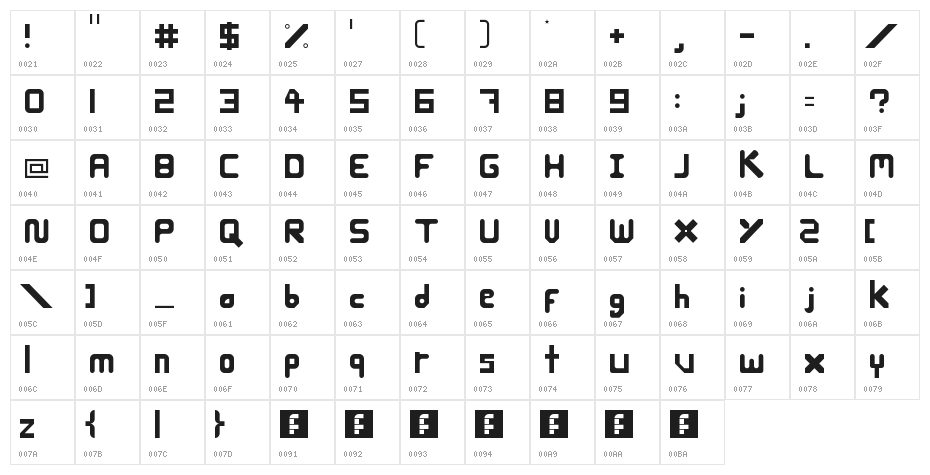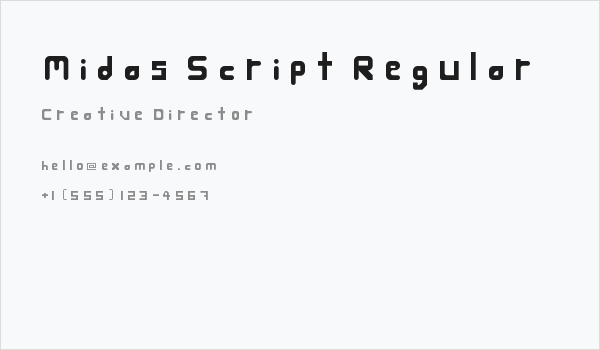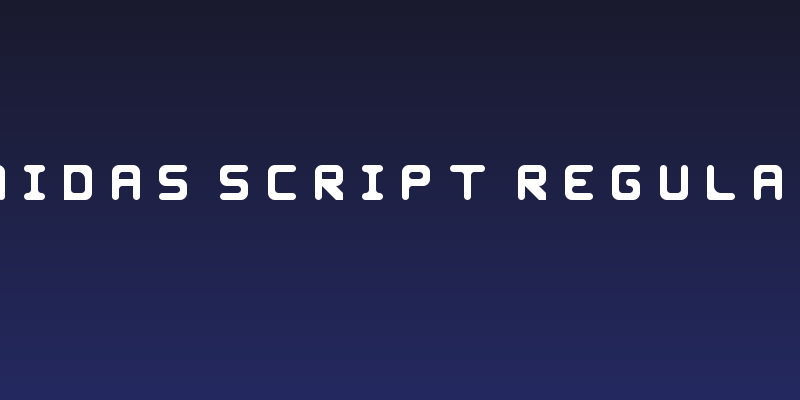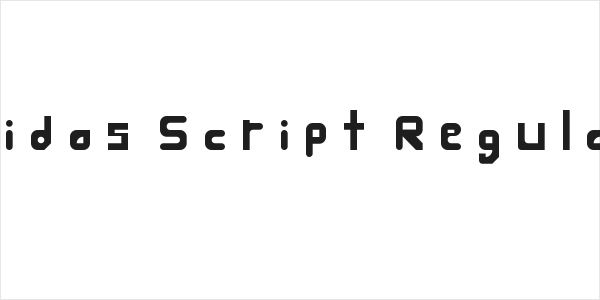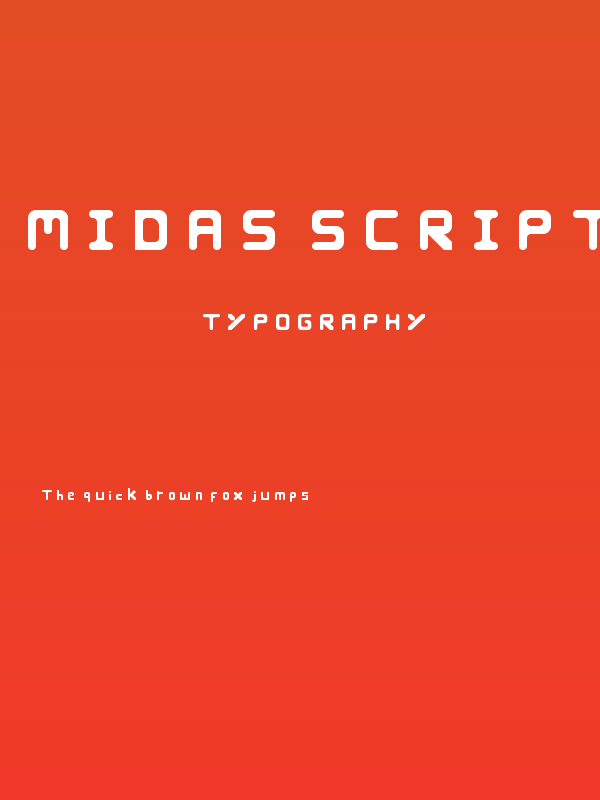
Midas Script Regular Font
Midas Script Regular Description
This font features a modern, geometric design with a strong emphasis on angular shapes and clean lines. The characters are uniformly structured, giving a sense of balance and precision. The uppercase and lowercase letters maintain a consistent height, contributing to a cohesive look. The numerals are bold and distinct, making them easily readable. Special characters are designed to match the overall aesthetic, with a focus on simplicity and functionality. This font's style is ideal for projects that require a contemporary and tech-savvy appearance.
| Use Case | Headlines, Logos, Digital interfaces |
| Proposed Projects | Ideal for technology branding, digital interfaces, and modern advertising. |